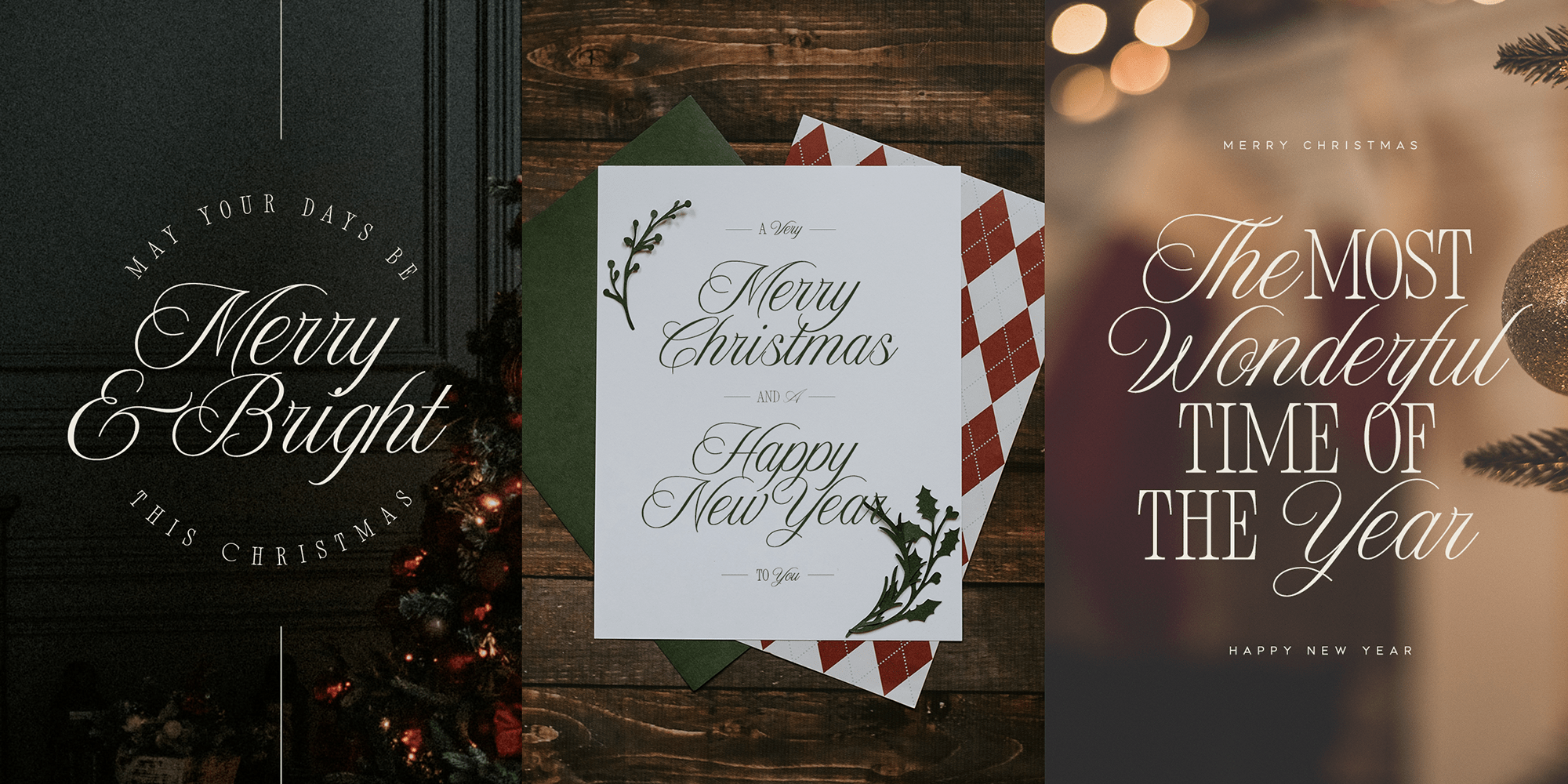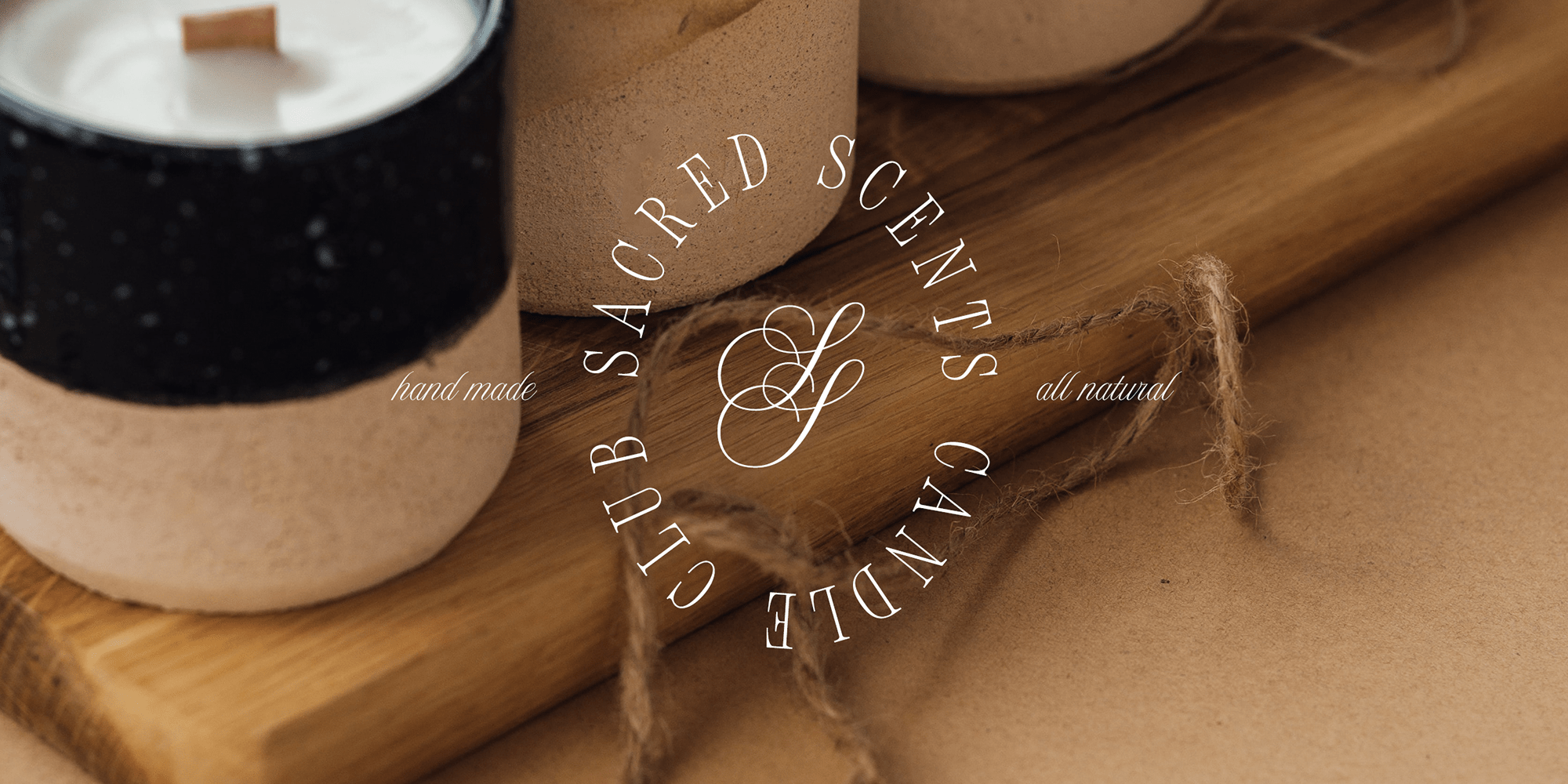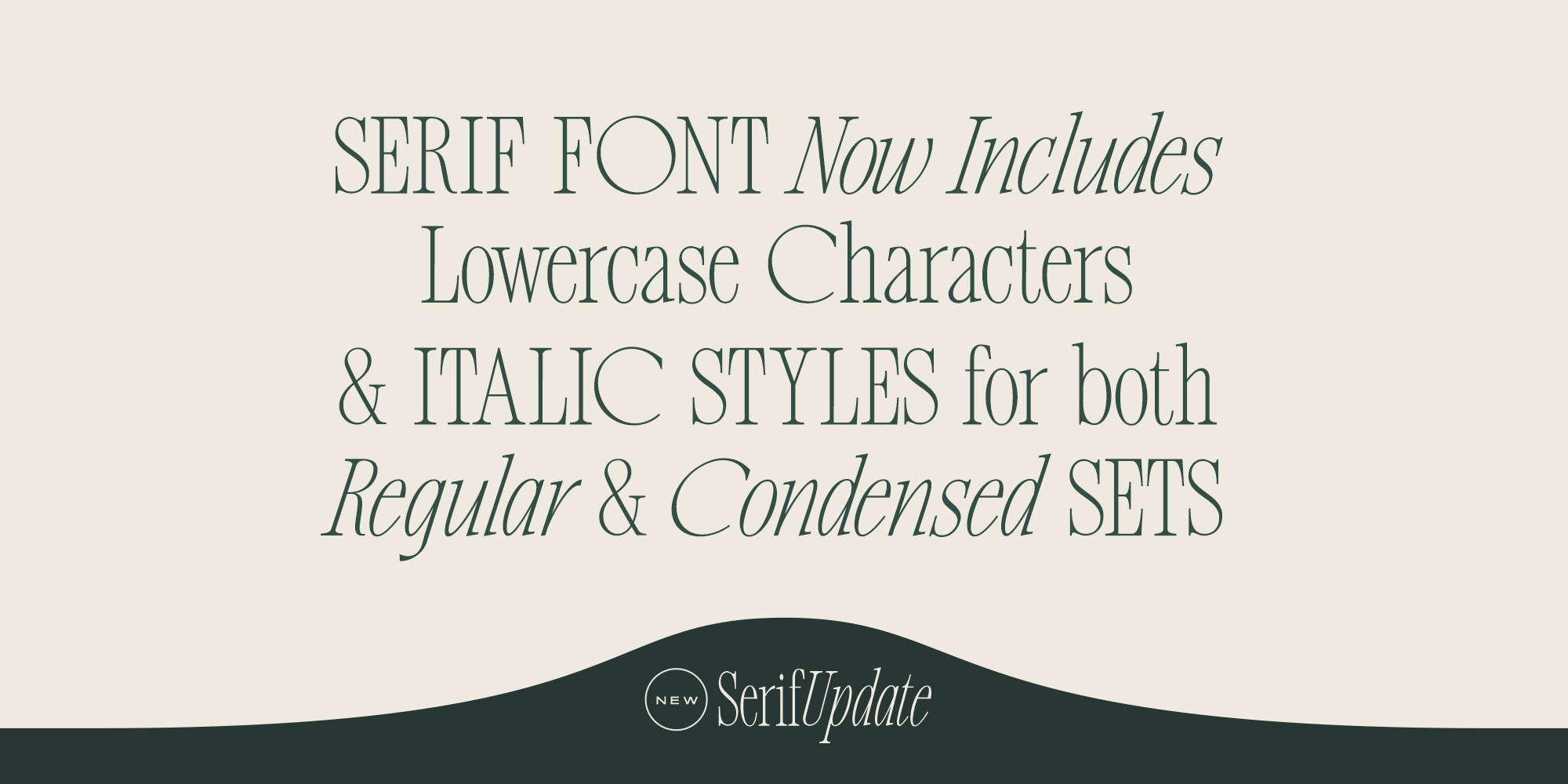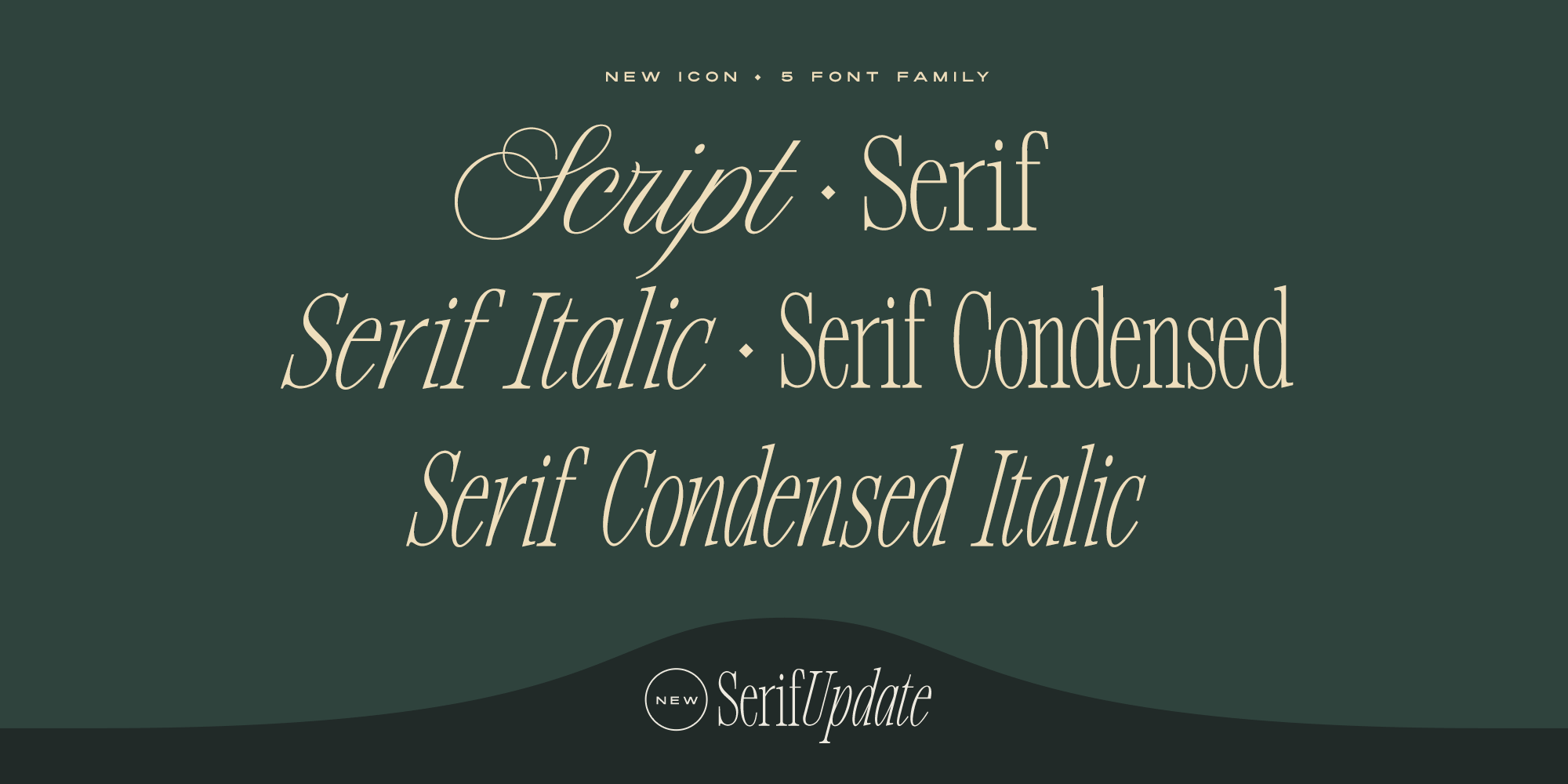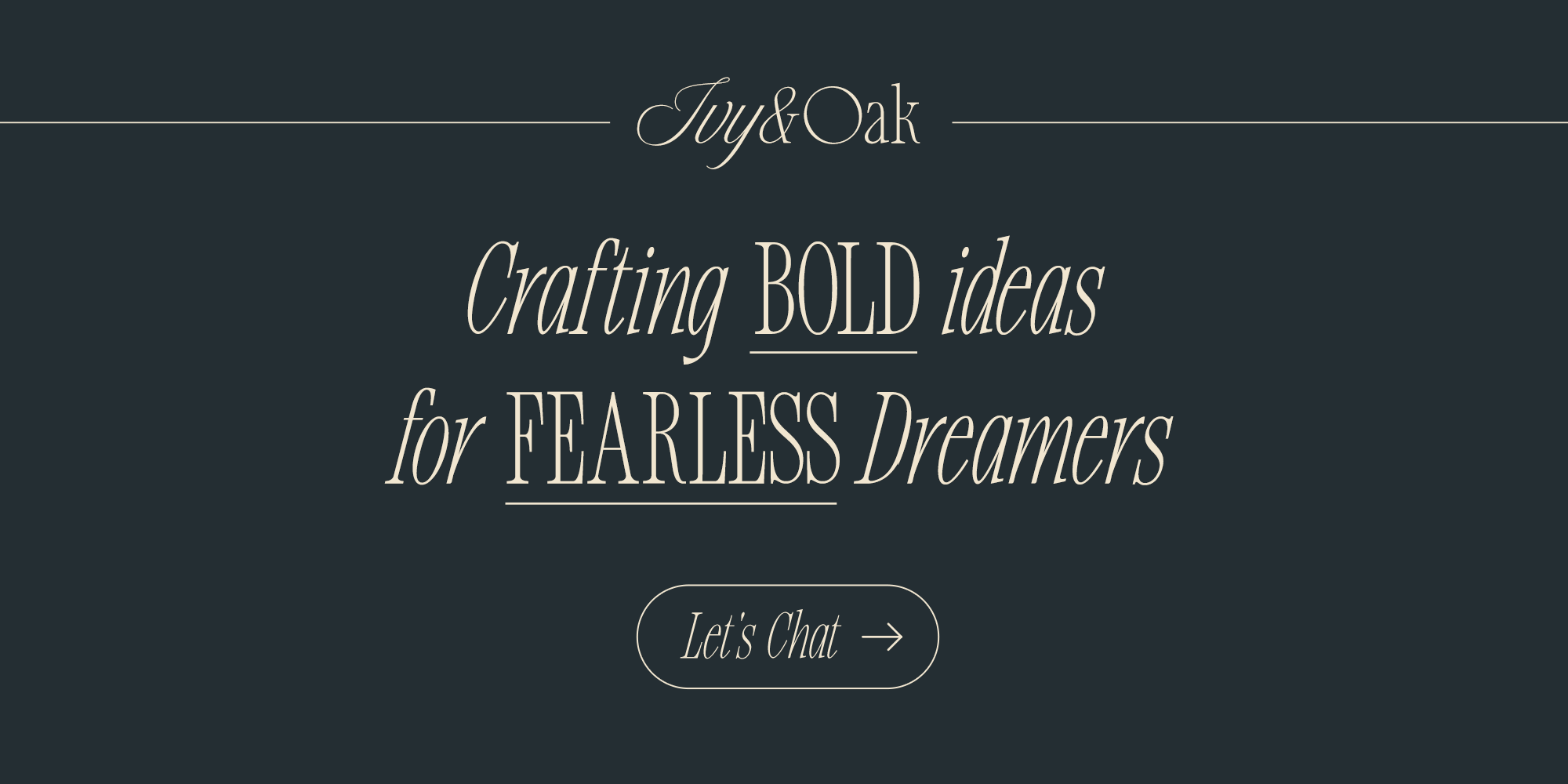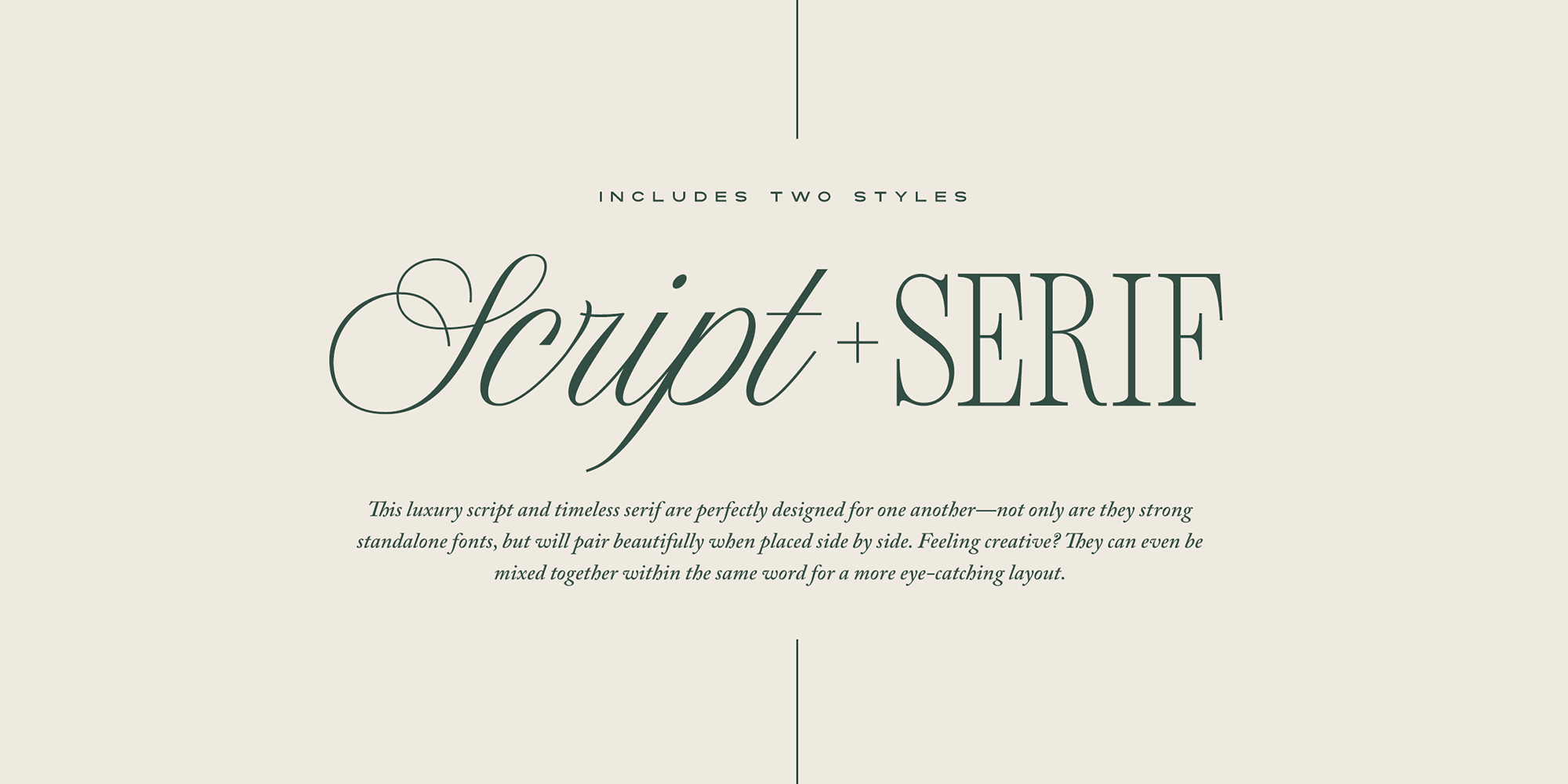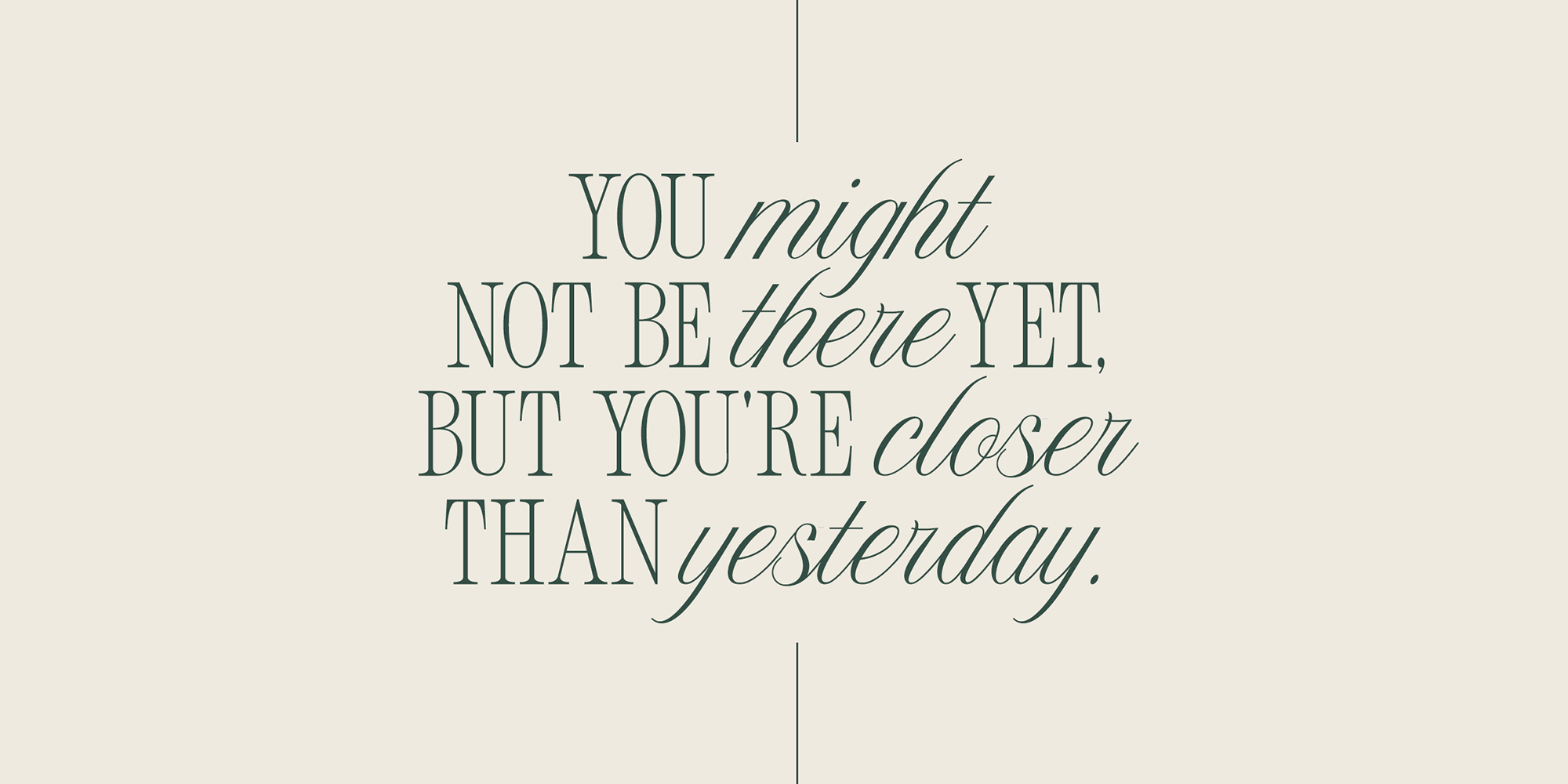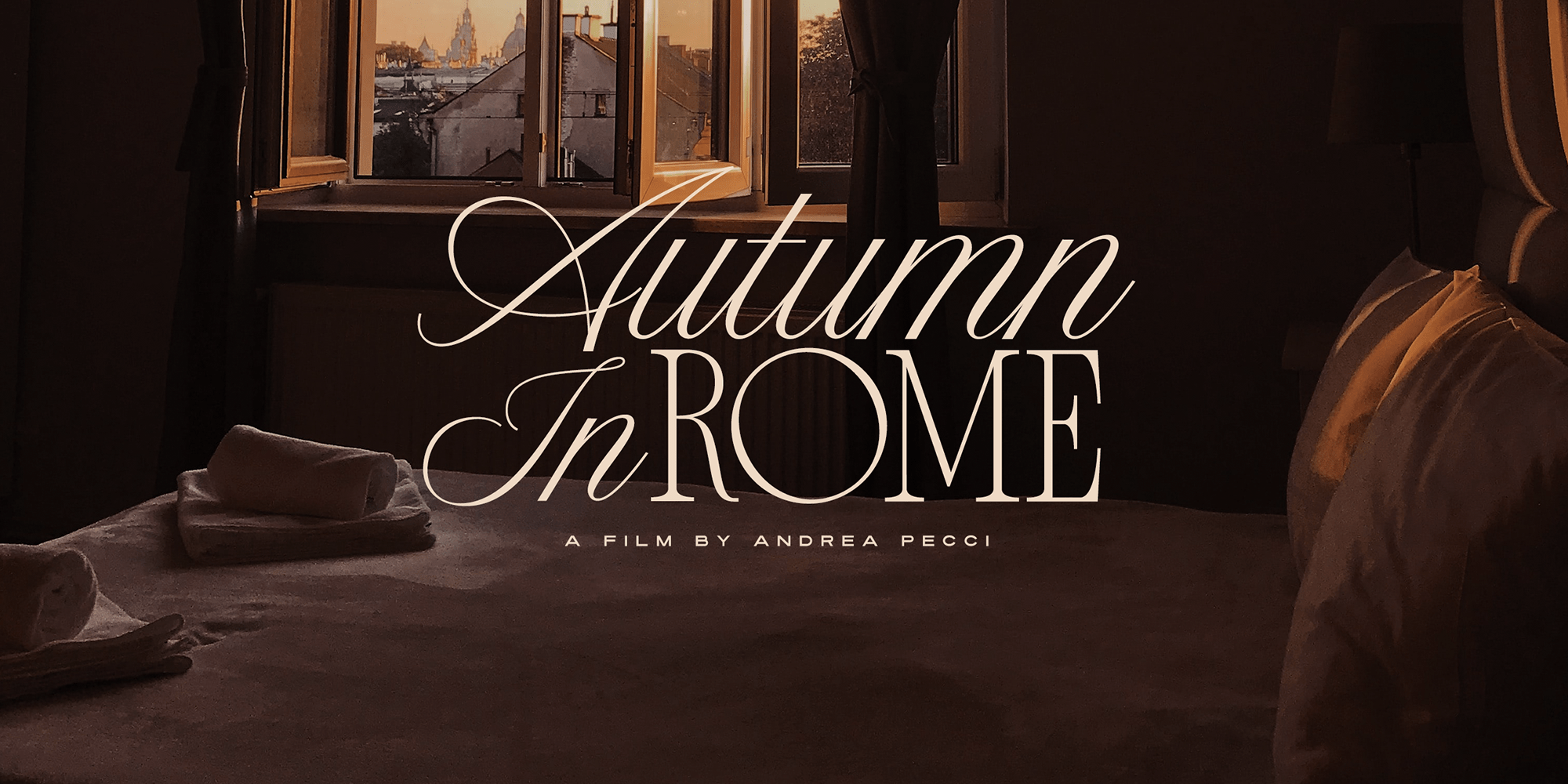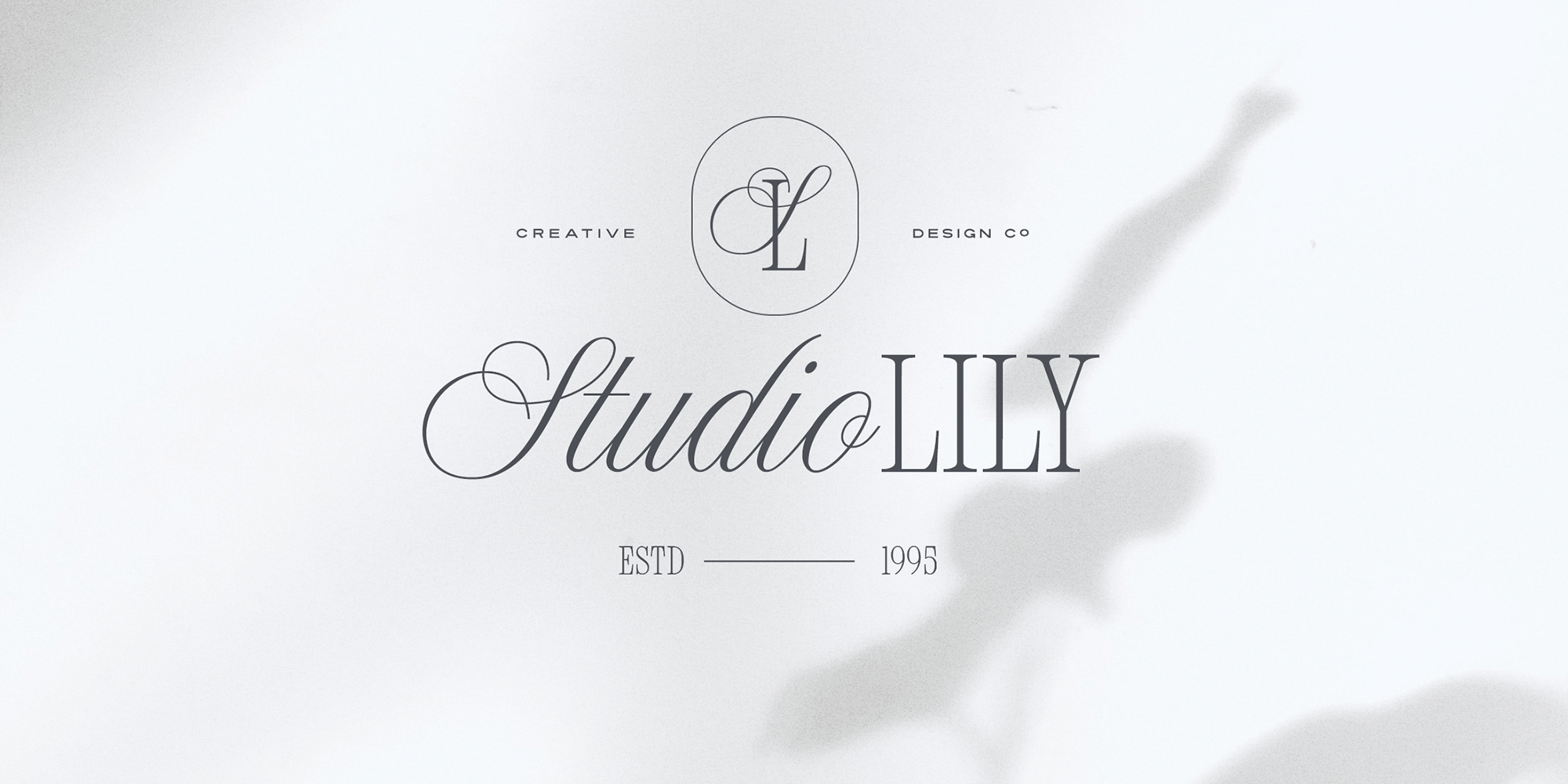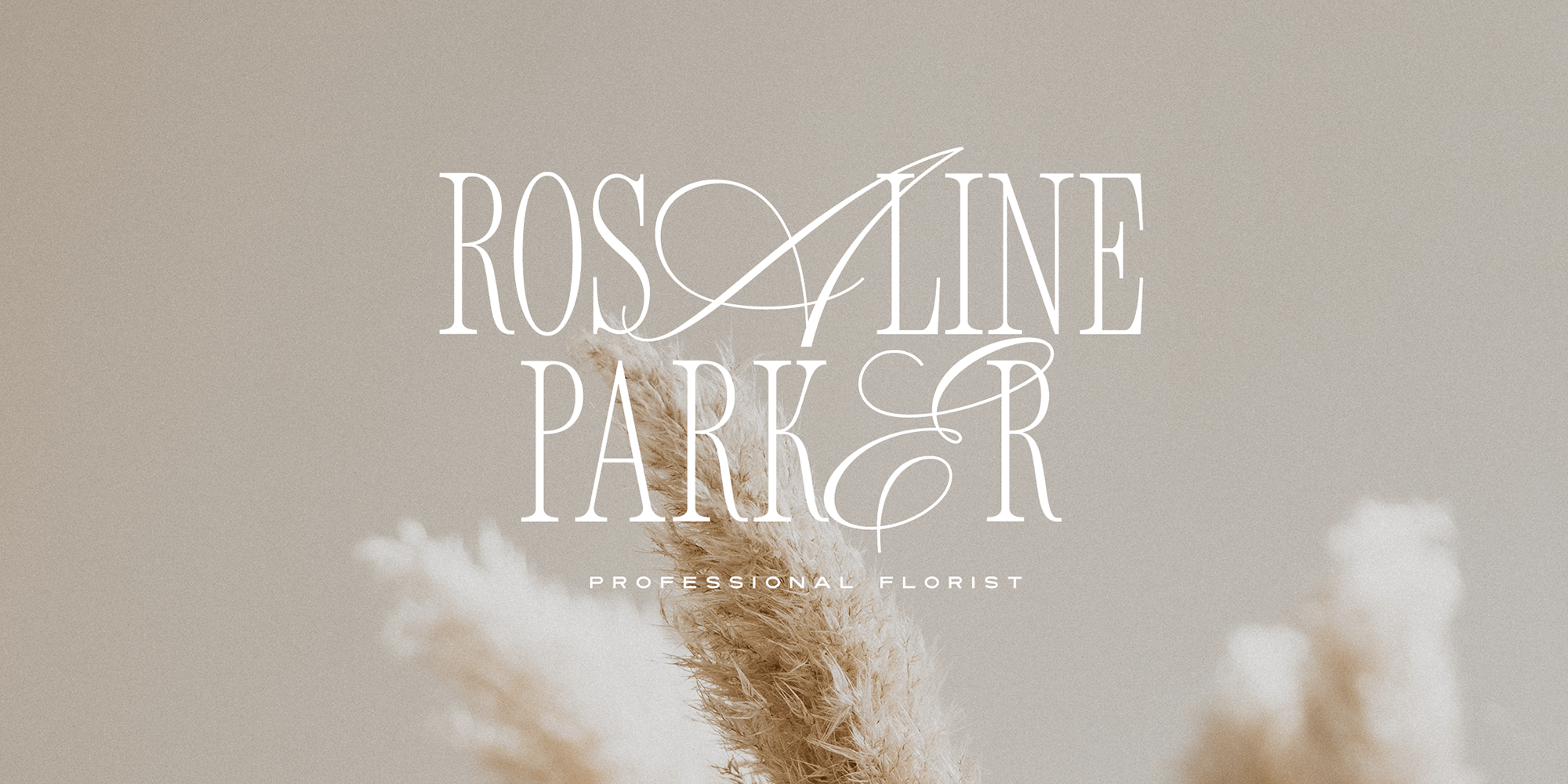
New Icon
Font Family by Set Sail Studios
Introducing the New Icon Font Duo. This luxury script and timeless serif are perfectly designed for one another-not only are they strong standalone fonts, but will pair beautifully when placed side by side. Feeling creative? They can even be mixed together within the same word for a more eye-catching layout, giving you a versatile set of fonts which can be used & loved across a range of design projects.
Included in this family;
New Icon Serif • A classic, all caps serif font with nostalgic notes. Contains alternate large-width O,G,Q,C characters in the ‘uppercase’ set.
New Icon Serif Condensed • A thinner version of the New Icon Serif.
New Icon Script • A luxury, cursive script font containing upper & lowercase characters. A beautiful letter set inspired by traditional calligraphy, which can be used on it’s own or paired effortlessly with the serif font. Contains alternate lowercase y & g with elongated tails, accessible by turning on ‘Stylistic Alternates’ or via a Glyphs panel.
✨ New Update! ✨
New Icon Serif now includes lowercase characters and italic versions for both the Regular and Condensed sets. The entire New Icon font family now consists of 5 fonts; Script, Serif Regular, Serif Italic, Serif Condensed, and Serif Condensed Italic.